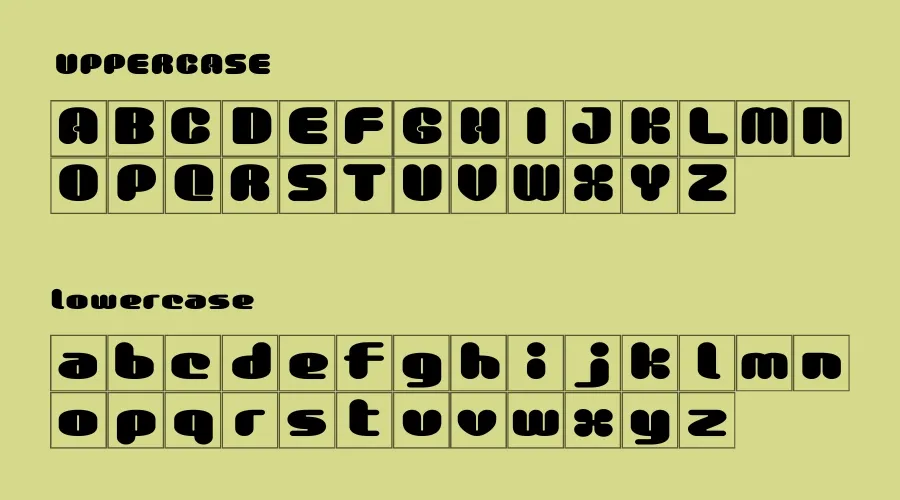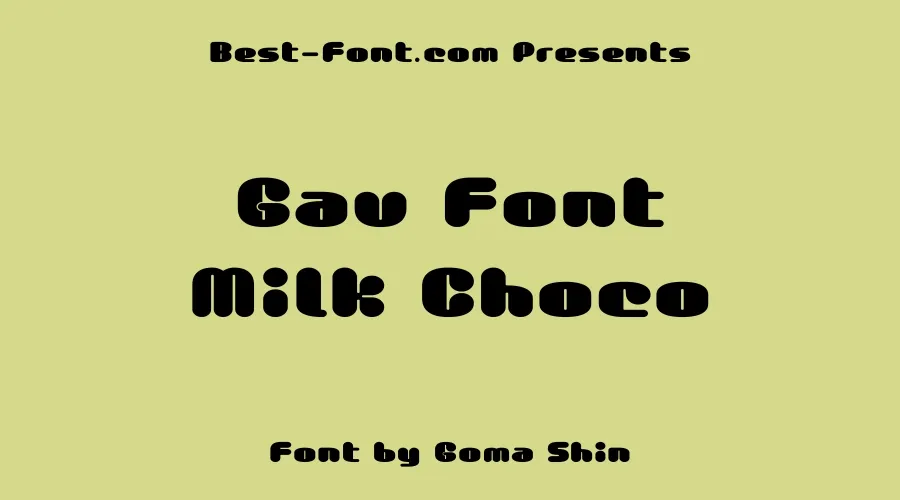
Gau Font Milk Choco Font
About Gau Font Milk Choco Font
Goma Shin designed Gau Font Milk Choco Font. You may adopt its special required symbols to create any kind of project. All letter types, both capital, and lower letters are also included in the font stylings.
Users must try this font type design for creating catchy headers and appealing captions. For all those seeking a beautiful and cheerful atmosphere, it is ideal. There are many uses for such an adaptable font type design.
It also includes standard capitalization, variations, fashionable substitutes, and numbers. The font type may be used to create various CSS designs. An online font generator tool can also be used to create this type of design. This typeface is very similar to the rock electric font.
The program can also be used to create a short design. Additionally, it is suitable for designing posters and placards. Many languages are supported, starting and ending letters are included, and alternative letters can be used. This font is also paired with the winob font.
Due to its innovative and brilliant structures, it can be used for a variety of purposes. In addition to having an appealing appearance, this font can be used to design interesting logos. The Adobe application Canva and Photoshop can be used with this.
Also, the font text style can generate branding ventures, houseware plans, item bundling, or basically as a content overlay on any basic picture.
Name Gau Font Milk Choco Font
Designer Goma Shin
Style Fancy